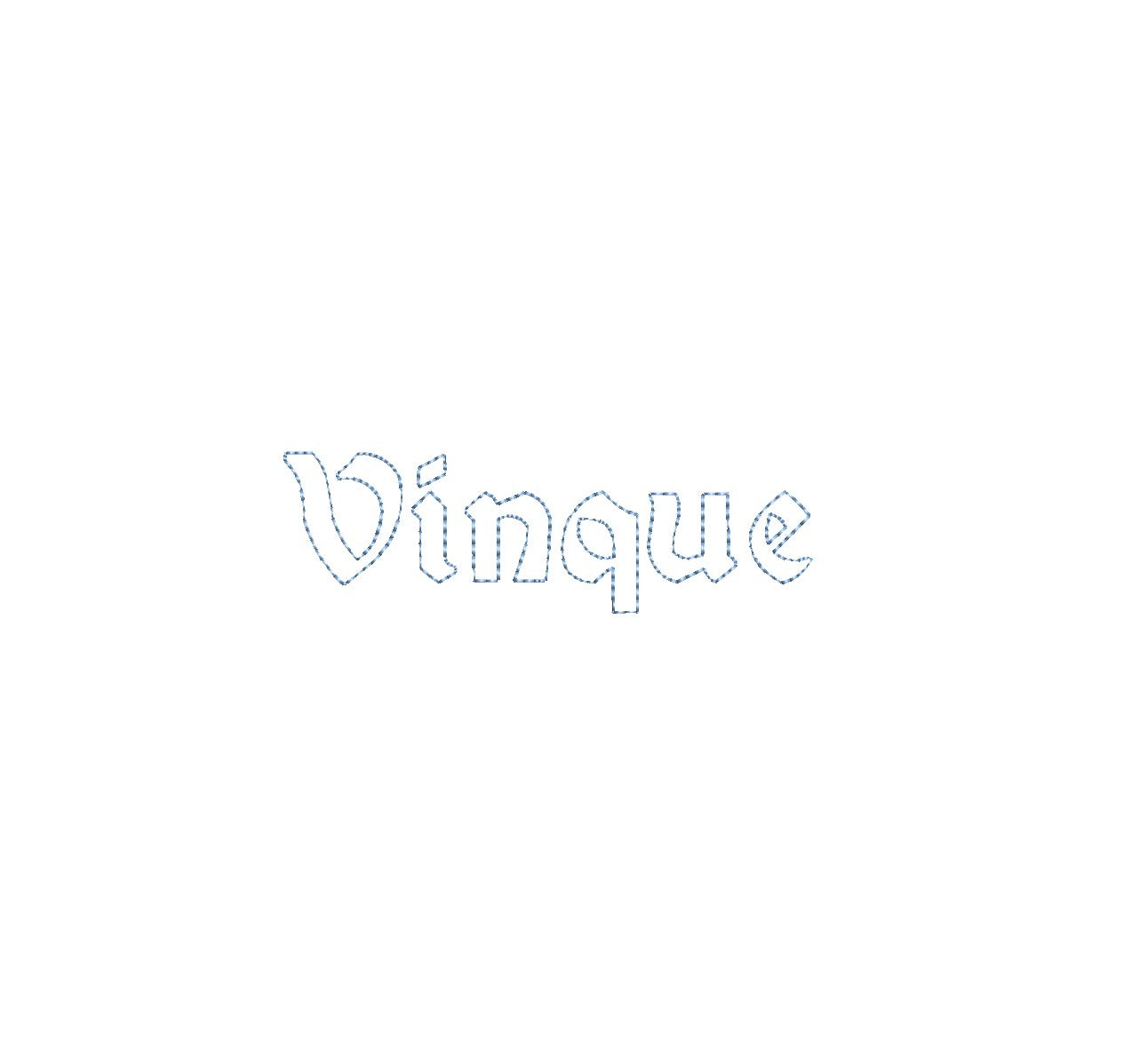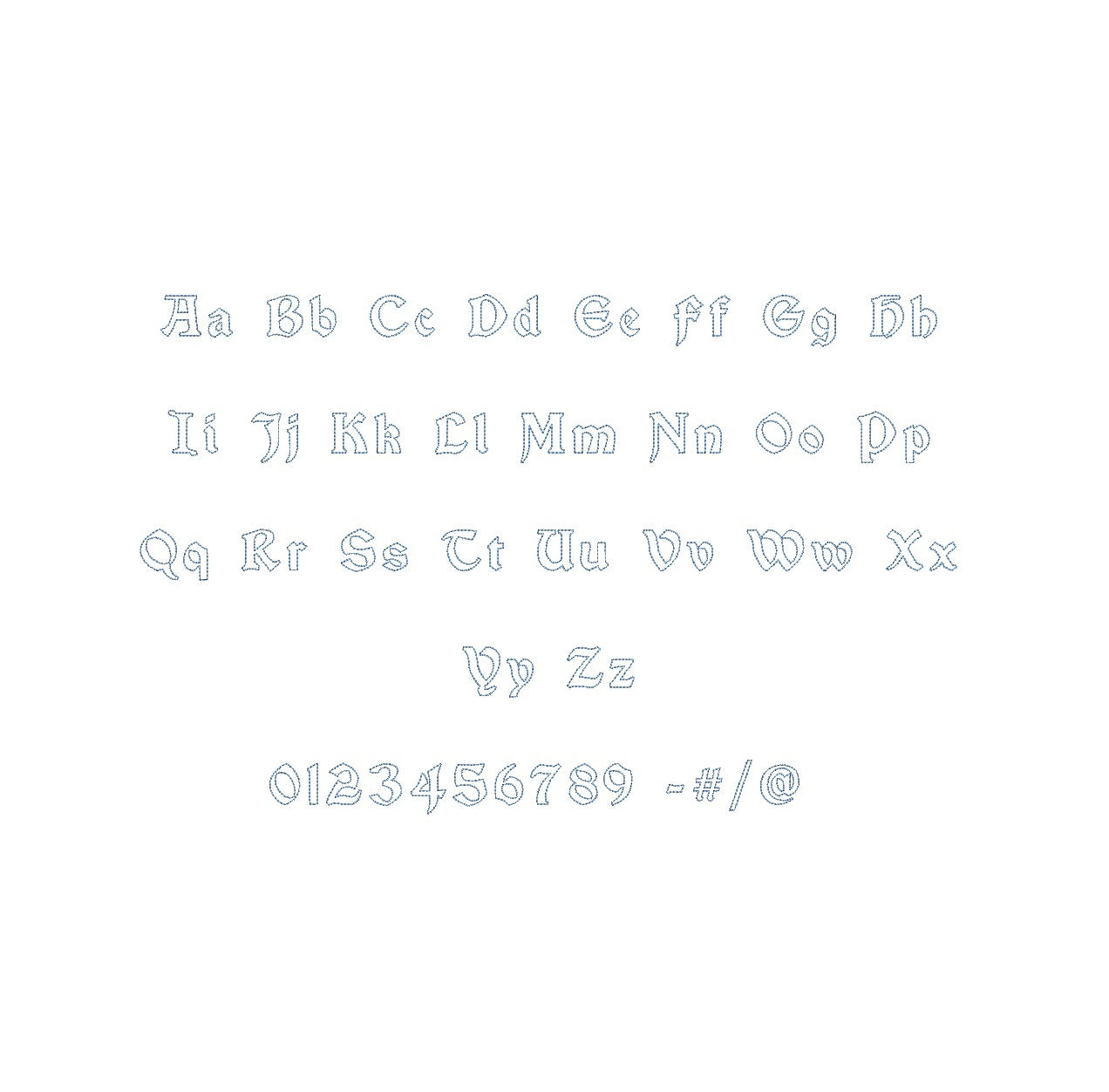
Elevate your embroidery projects with the Vinque Bean Stitch Outline ESA font, designed for compatibility with Wilcom Studio e4.5.6 and Hatch 3 versions and up. This font effortlessly combines modern sophistication and precision, infusing your designs with a unique aesthetic perfect for versatile monograms and embellishments. Experience seamless compatibility for exceptional results and unleash a new level of stitching finesse. Transform your creations into embroidery masterpieces that radiate elegance and creativity. Elevate your projects with the Vinque Bean Stitch Outline ESA font and make your embroidery truly captivating and unforgettable.